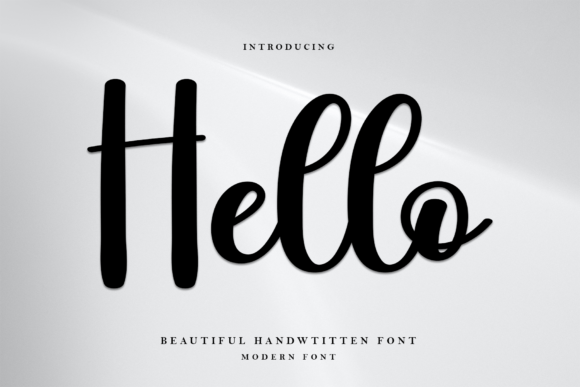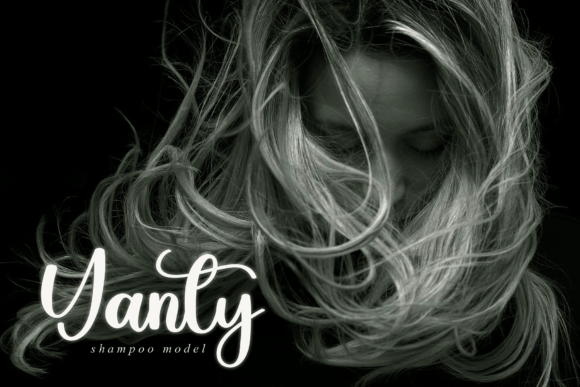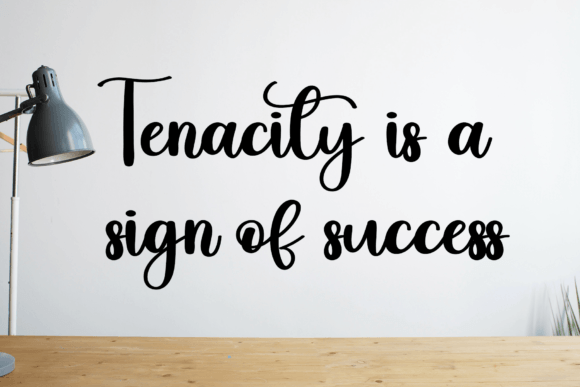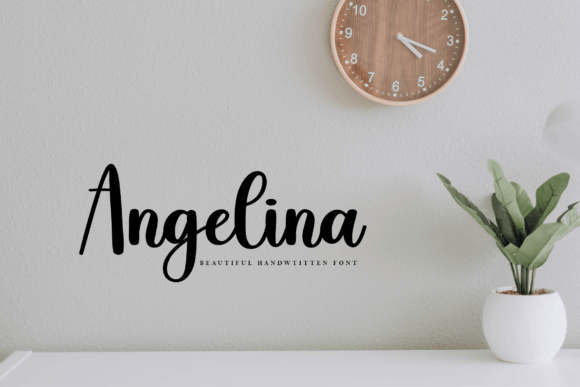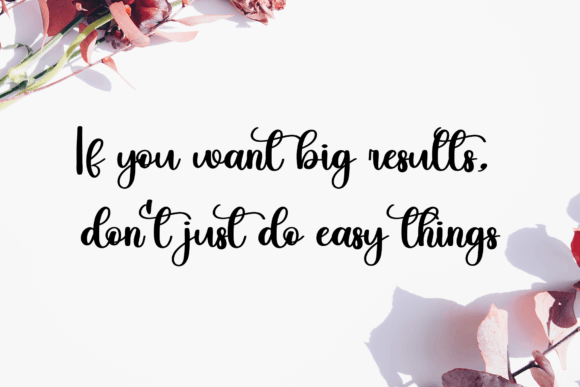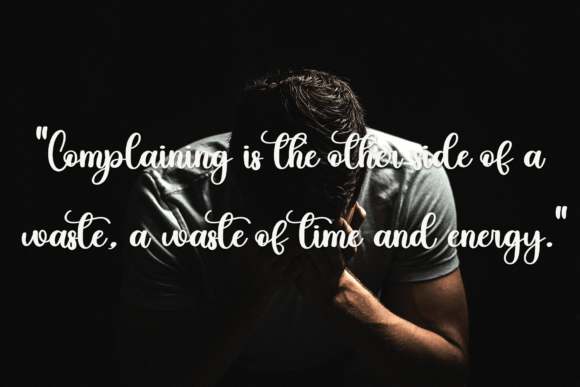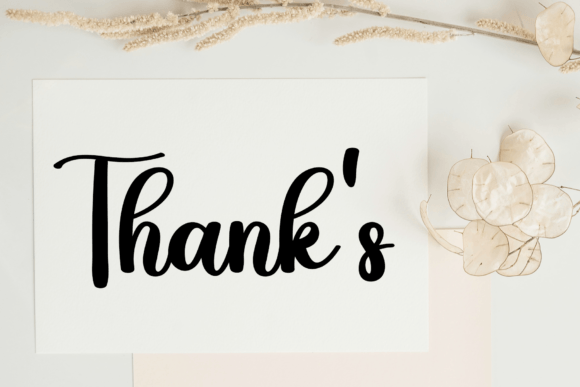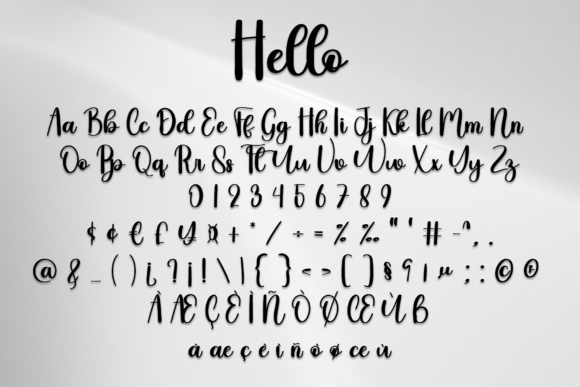
Hello Font
About Hello Font
“Hello” is a delicate handwritten font that has been meticulously crafted to bring a cool and unique vibe to your designs. Its elegant and stylish appearance makes it a versatile choice for various applications, allowing you to create visually appealing content with a touch of sophistication.
This font is particularly well-suited for writing letters, where its delicate strokes add a personal and intimate feel to your messages. Whether you’re sending heartfelt notes or formal correspondence, “Hello” enhances the emotional connection between the sender and the recipient, making the communication more meaningful.
In invitations, “Hello” exudes charm and creativity. Its carefully designed characters make your invitations stand out, setting the tone for the event and leaving a memorable impression on the guests. The font’s delicate nature adds an element of refinement to the design, making it perfect for weddings, parties, and other special occasions.
For food products, “Hello” can be used to create stylish labels and packaging designs. Its unique handwritten style adds a trendy and artisanal touch, making your products more visually appealing to customers. Whether you’re packaging homemade treats or gourmet goods, “Hello” enhances the overall presentation and elevates the perceived value of your products.
In titles and headers, “Hello” makes a bold statement. Its delicate yet distinctive characters draw attention and add a touch of elegance to your designs. Whether you’re designing book covers, blog headers, or website titles, “Hello” adds a cool and unique flair, making your content visually striking and engaging.
Beyond these applications, “Hello” can be used in a wide range of creative projects, allowing you to explore your design ideas and bring your vision to life. Its versatility makes it suitable for various design contexts, making it a valuable asset for designers, content creators, and anyone looking to add a cool and unique touch to their creations.
With “Hello,” you have a font that not only enhances your designs but also adds a sense of creativity and personality. Its delicate handwritten style brings a touch of artistry to your projects, making them more appealing and captivating. Whether you’re working on letters, invitations, food products, titles, or any other design, “Hello” allows you to create cool and unique visuals that leave a lasting impression on your audience.